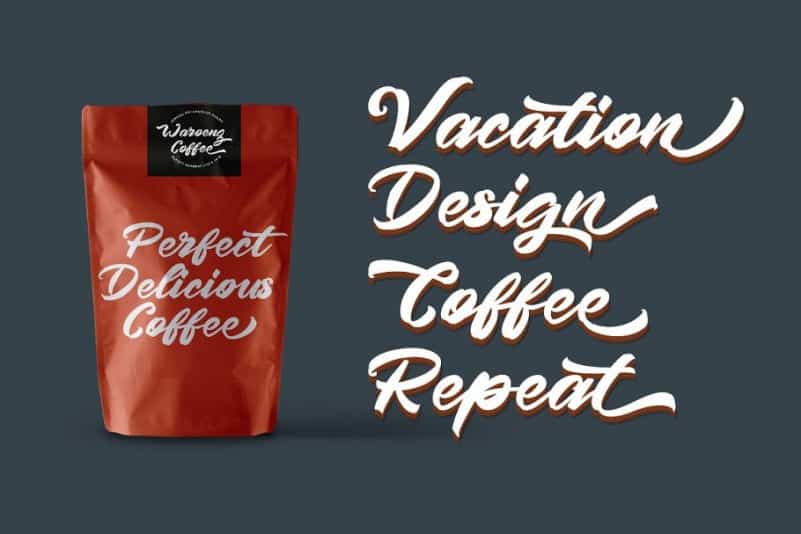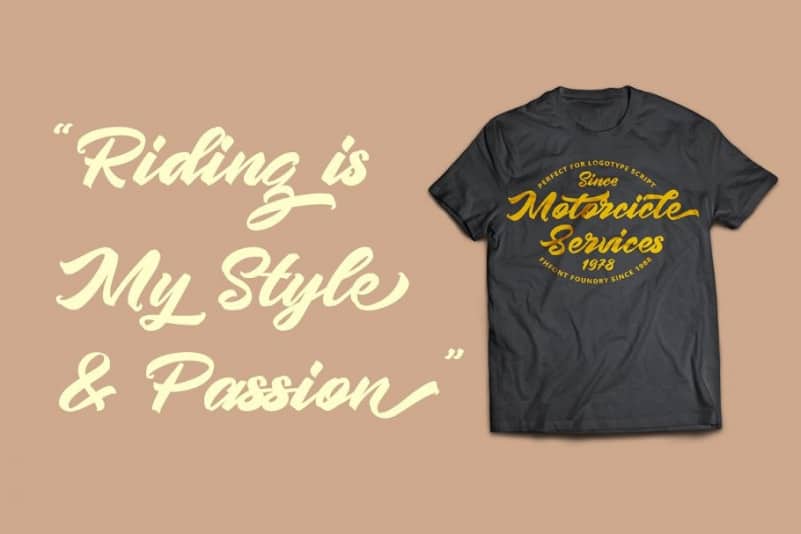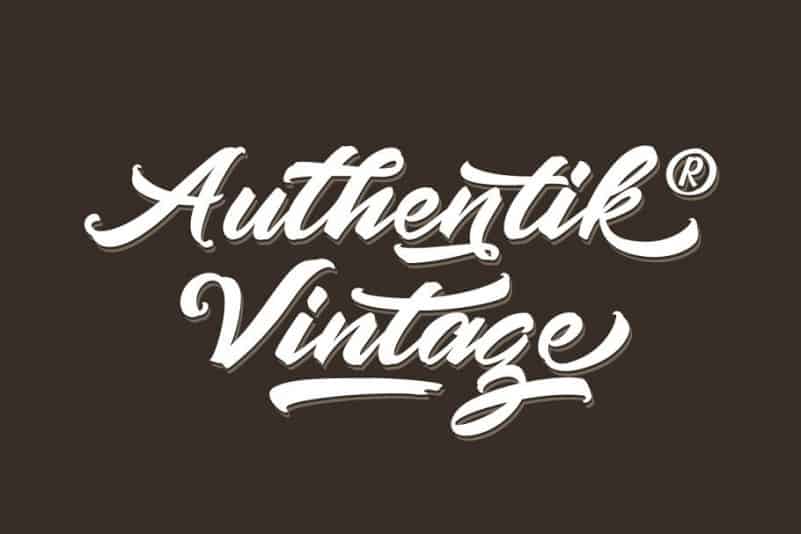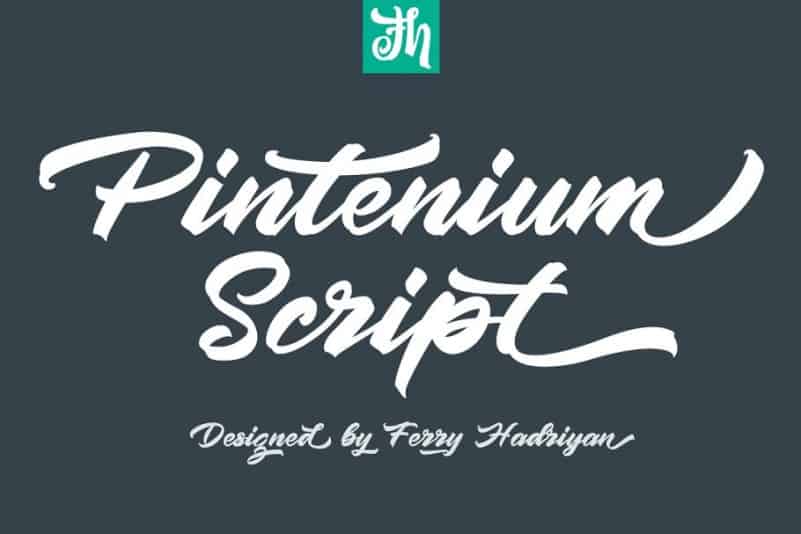
Pintenium Brush Font
Introducing Pintenium Brush Font, a warm, bouncy calligraphy font. It’s designed and shared by FHFont. This typeface is Vintage Script Brush Font with Handlettering Brush Style, so much opentype feature include of the font. Suitable for design, element design, wedding, event, t-shirt, logo, badges, sticker, and awesome work, etc…